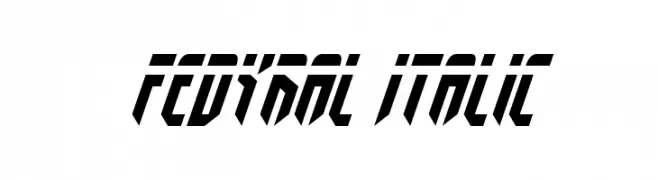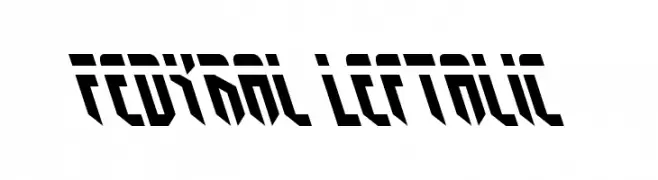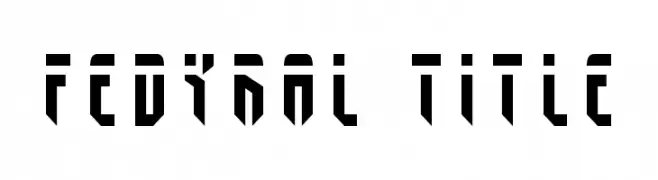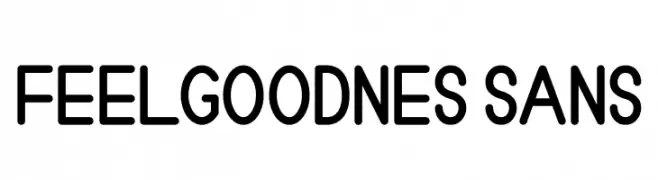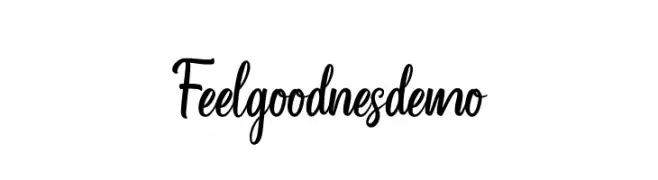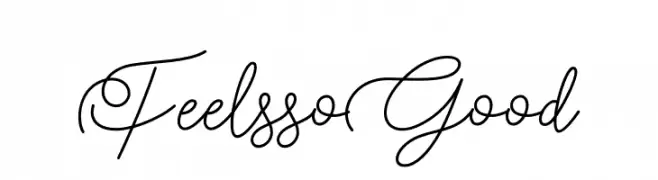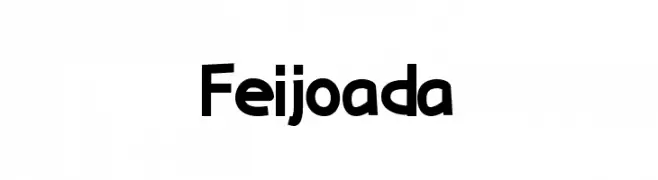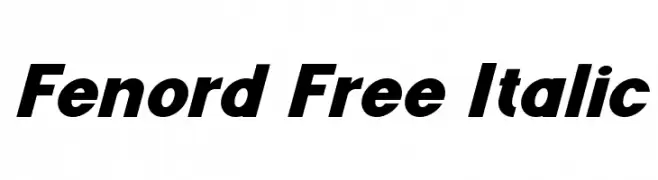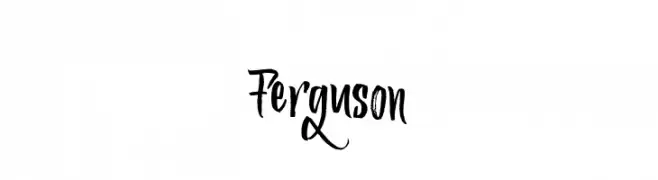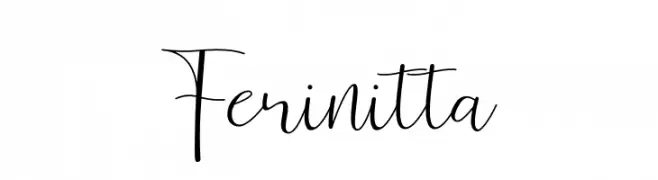
A modern, rounded sans-serif font with a friendly and approachable style.
A lively and elegant script font with fluid, connected letterforms.
An elegant script font with flowing, ornate letterforms and graceful swashes.
An elegant script font with flowing cursive style and intricate flourishes.
An elegant script font with flowing, cursive letterforms and decorative flourishes.
A playful and elegant cursive font with flowing, interconnected letters.
A playful, bold font with a hand-drawn, friendly appearance.
A modern, geometric font with clean lines and rounded corners, ideal for technical and futuristic designs.
A modern, geometric font with clean lines and a futuristic style.
A graceful script font with flowing cursive letters and intricate flourishes.
A bold, modern italic font with smooth, slanted letterforms.
A bold, modern sans-serif font with clean lines and balanced spacing.
A bold, modern sans-serif font with clean, geometric lines.
A lively, handwritten font with fluid strokes and playful elegance.
A dynamic, brush-style font with expressive, cursive strokes.
A graceful and flowing handwritten script font with elegant curves.
An elegant, flowing script font with ornate, cursive letterforms.
A lively, expressive handwritten font with dynamic strokes.
A playful, rounded font with a casual and friendly style.
A playful, rounded font with smooth curves and a friendly appearance.
A bold, rounded font with a playful and approachable style.
A bold, rounded font with a playful and friendly style.
A bold, italicized font with smooth, rounded edges and a dynamic slant.
A bold, italic font with smooth, rounded characters and a dynamic slant.
A dynamic italic font with smooth, consistent strokes and a lively appearance.
A playful, handwritten-style italic font with medium contrast and good legibility.
A modern, elegant font with high contrast and sharp serifs.
A dynamic, fluid handwritten script with elegant cursive strokes.